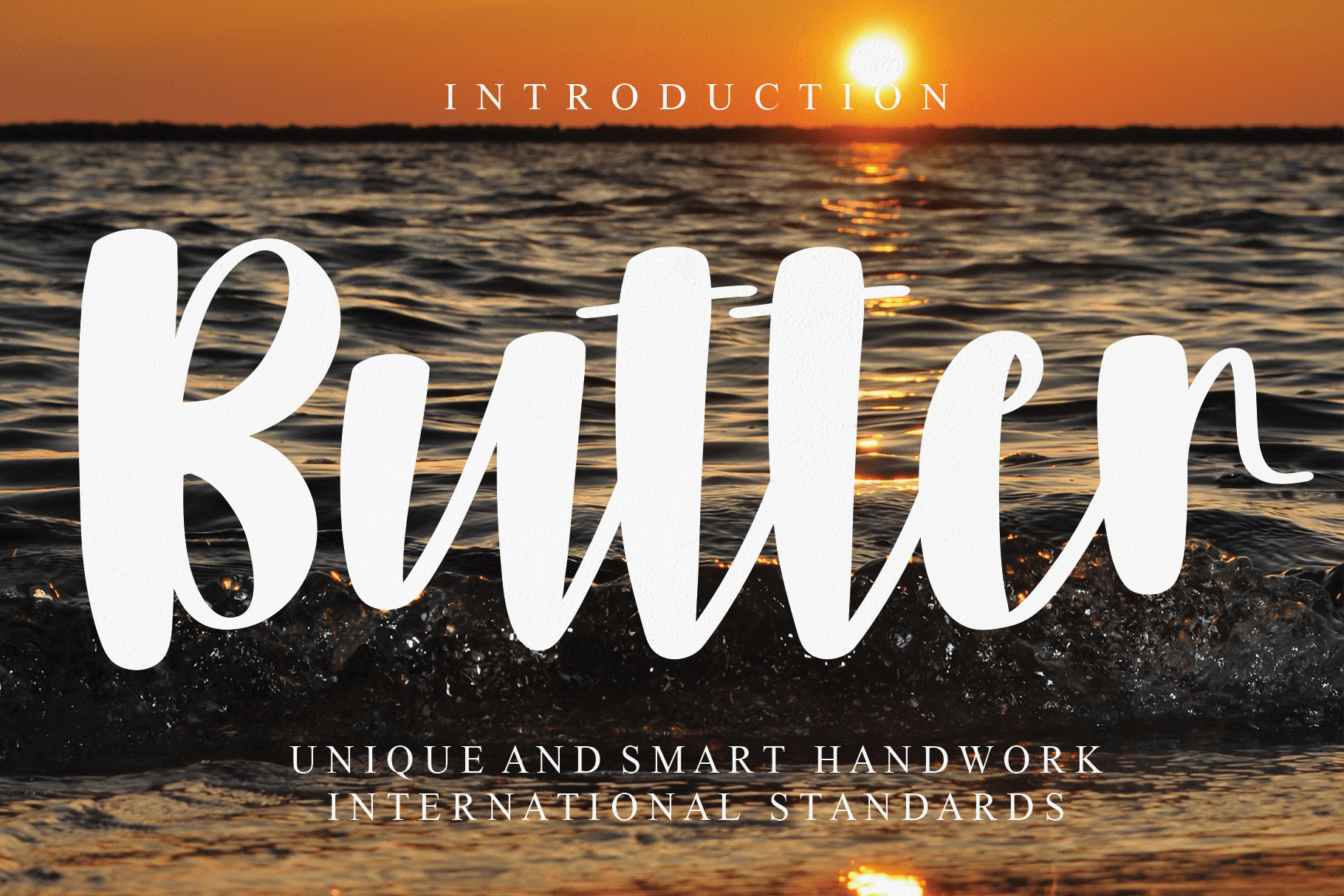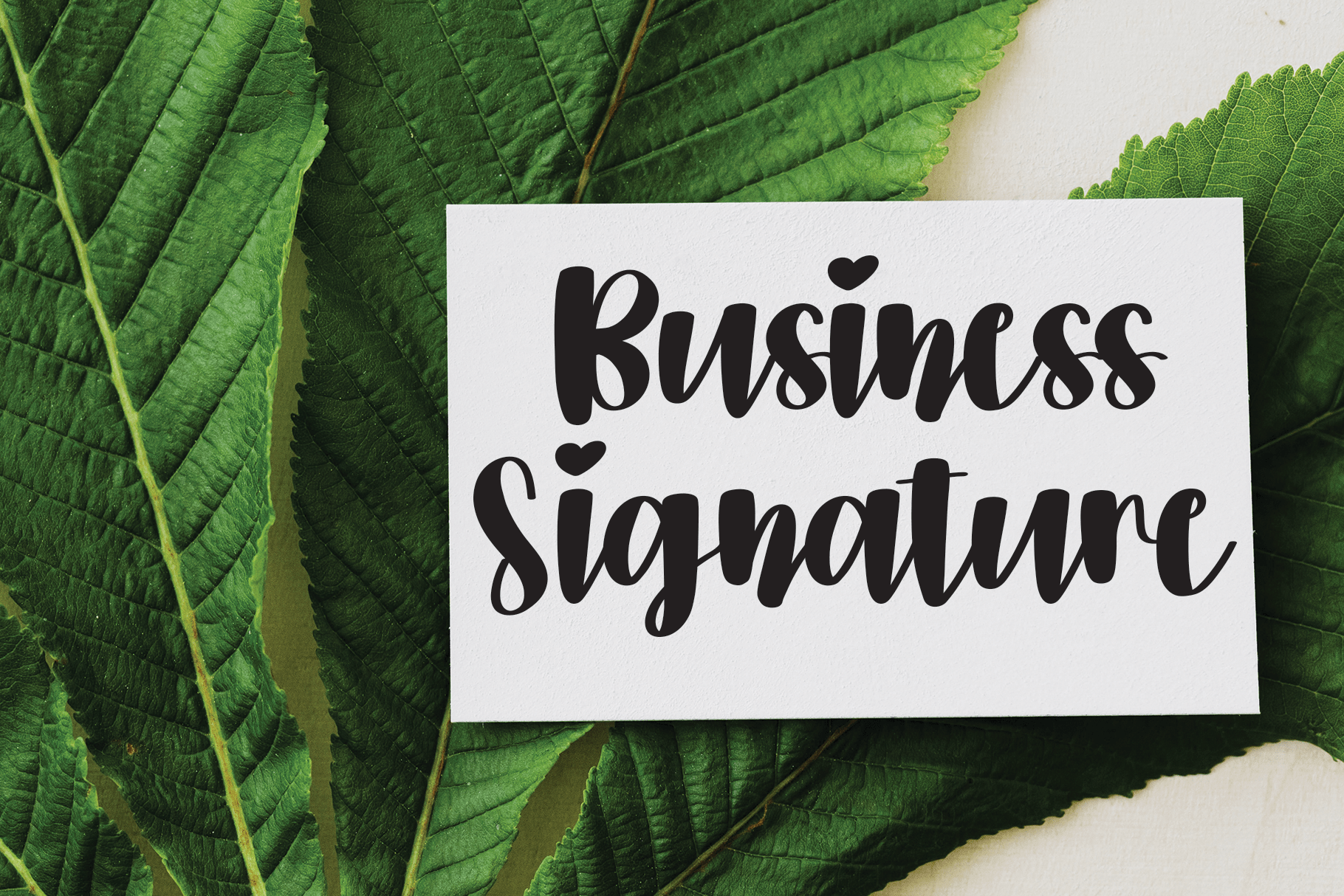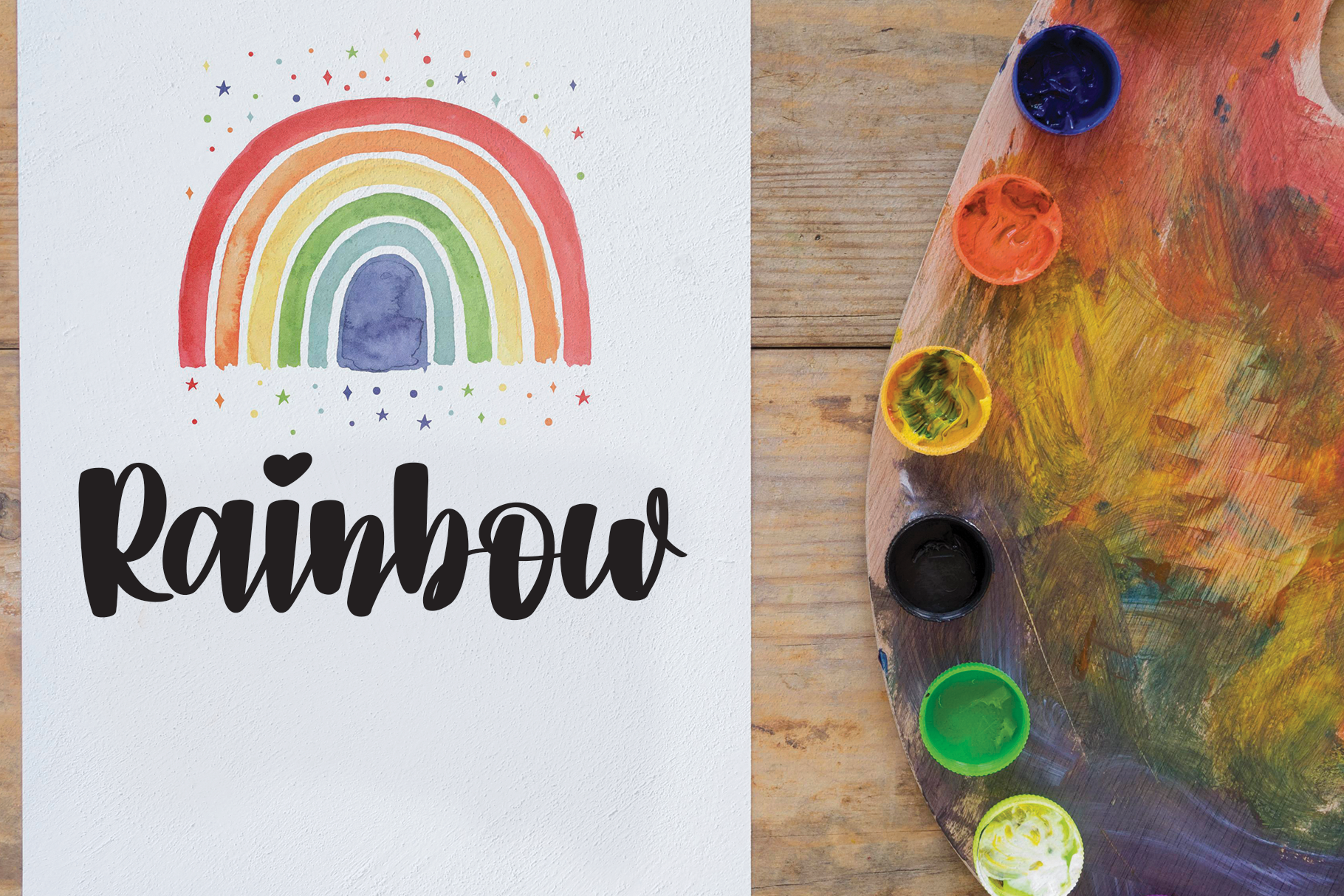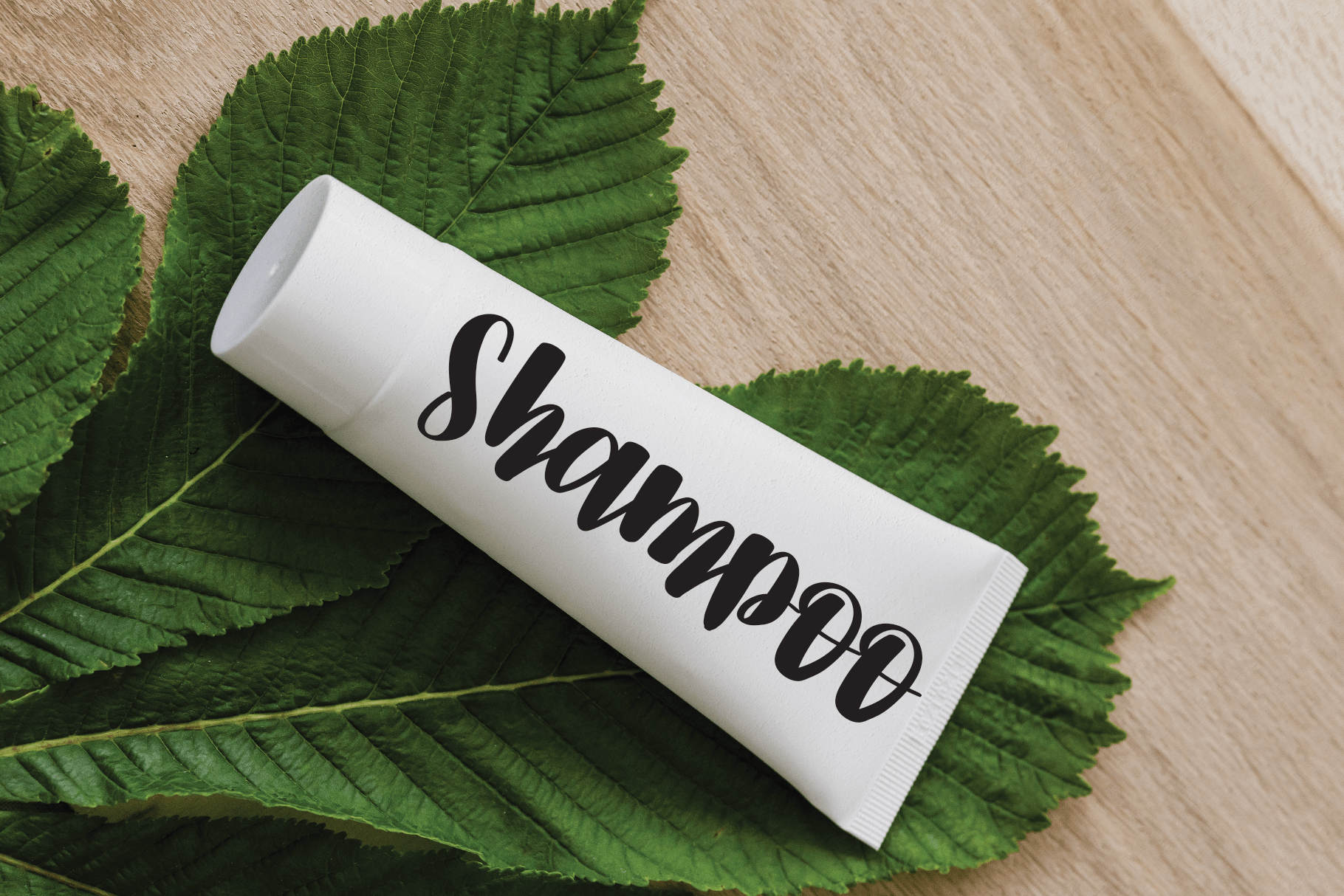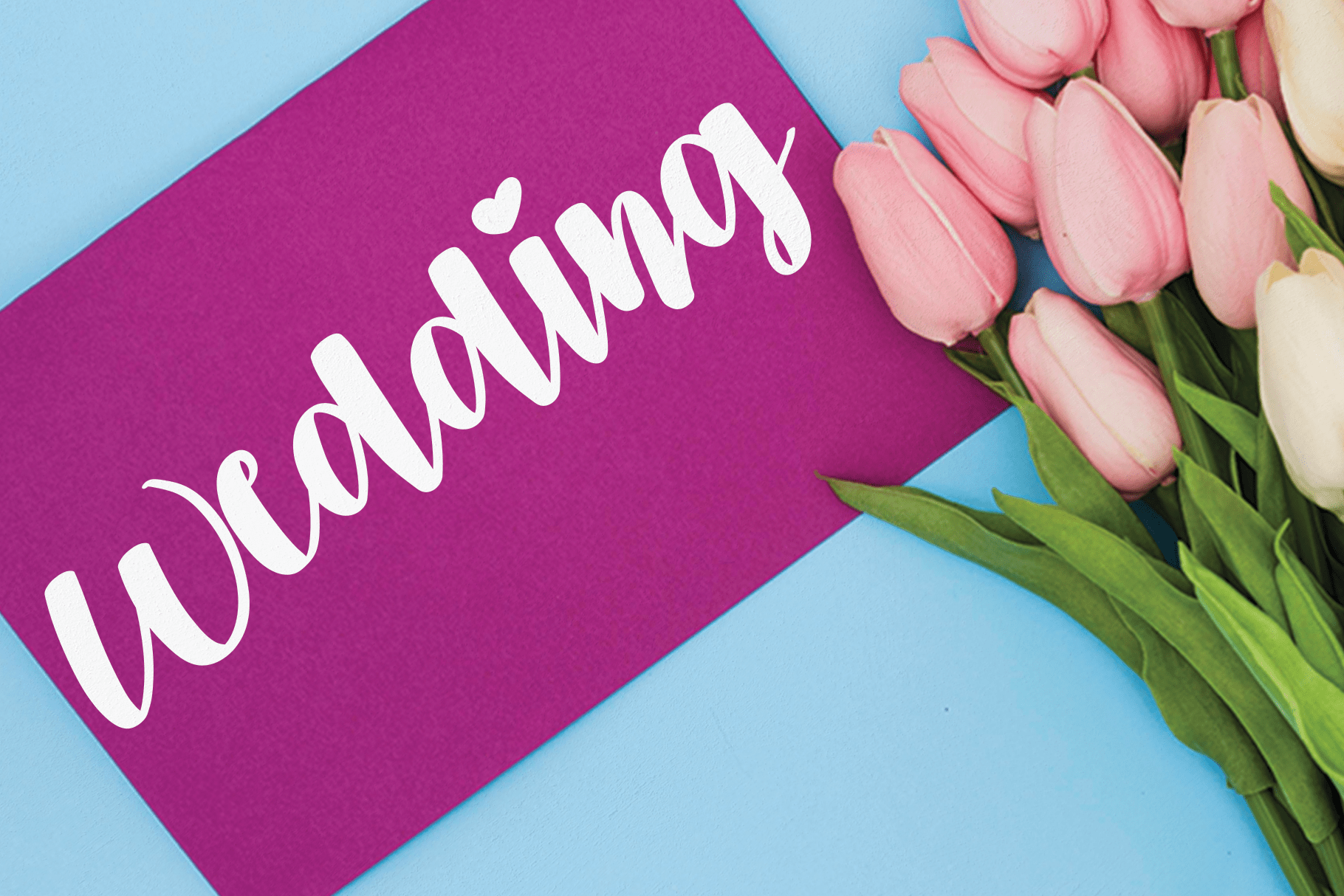
Butter Script Font
This is a chic and relaxed handwritten font. Whatever the topic, this font will be a wonderful asset to your font library, as it has the potential to enhance any creation.
the latest style letters are perfect for wall displays, wedding invitations, social media post logos, advertisements, product packaging, product designs, labels, photography, watermarks, invitations, stationery, and any project that requires taste handwriting.